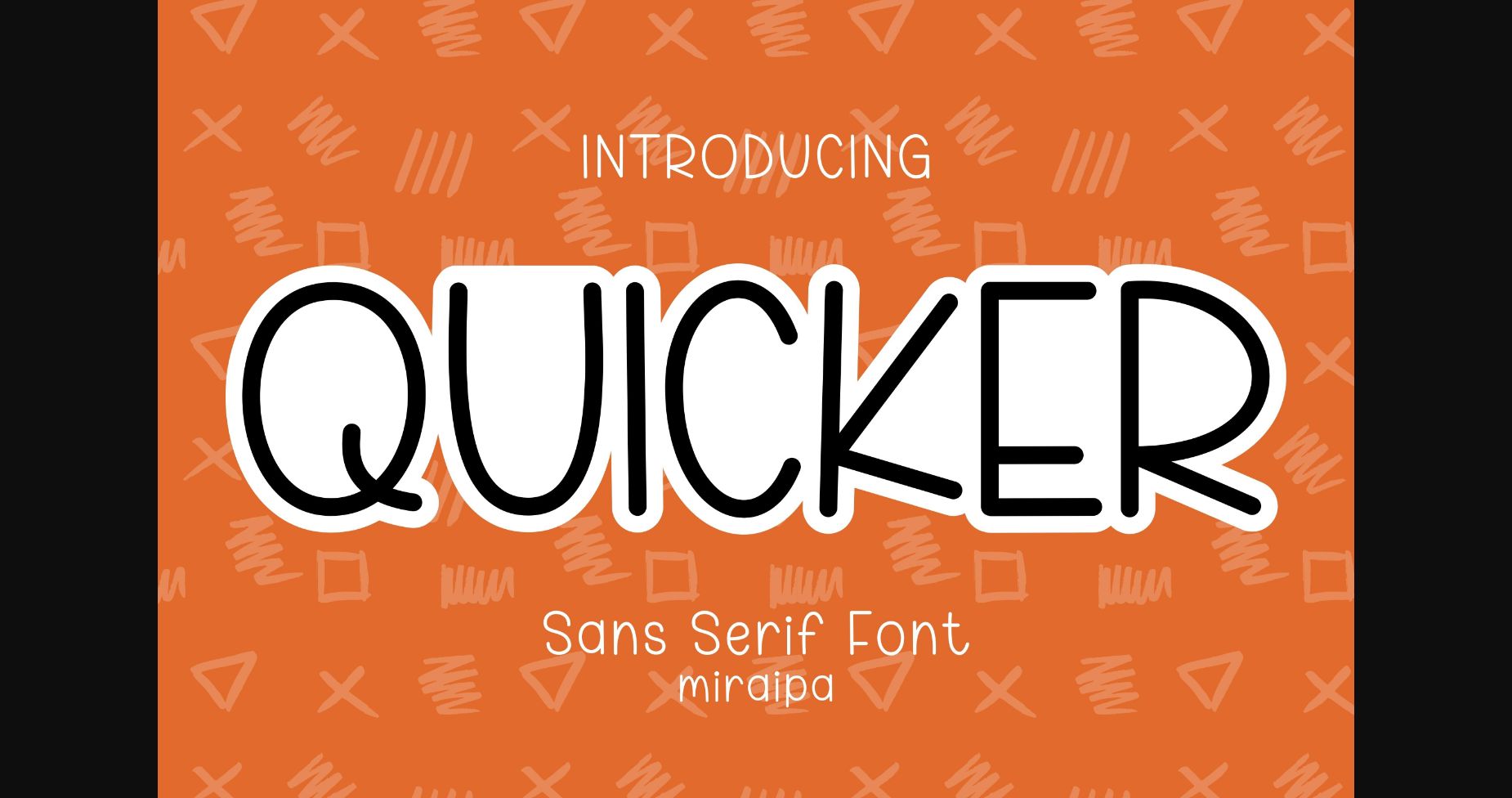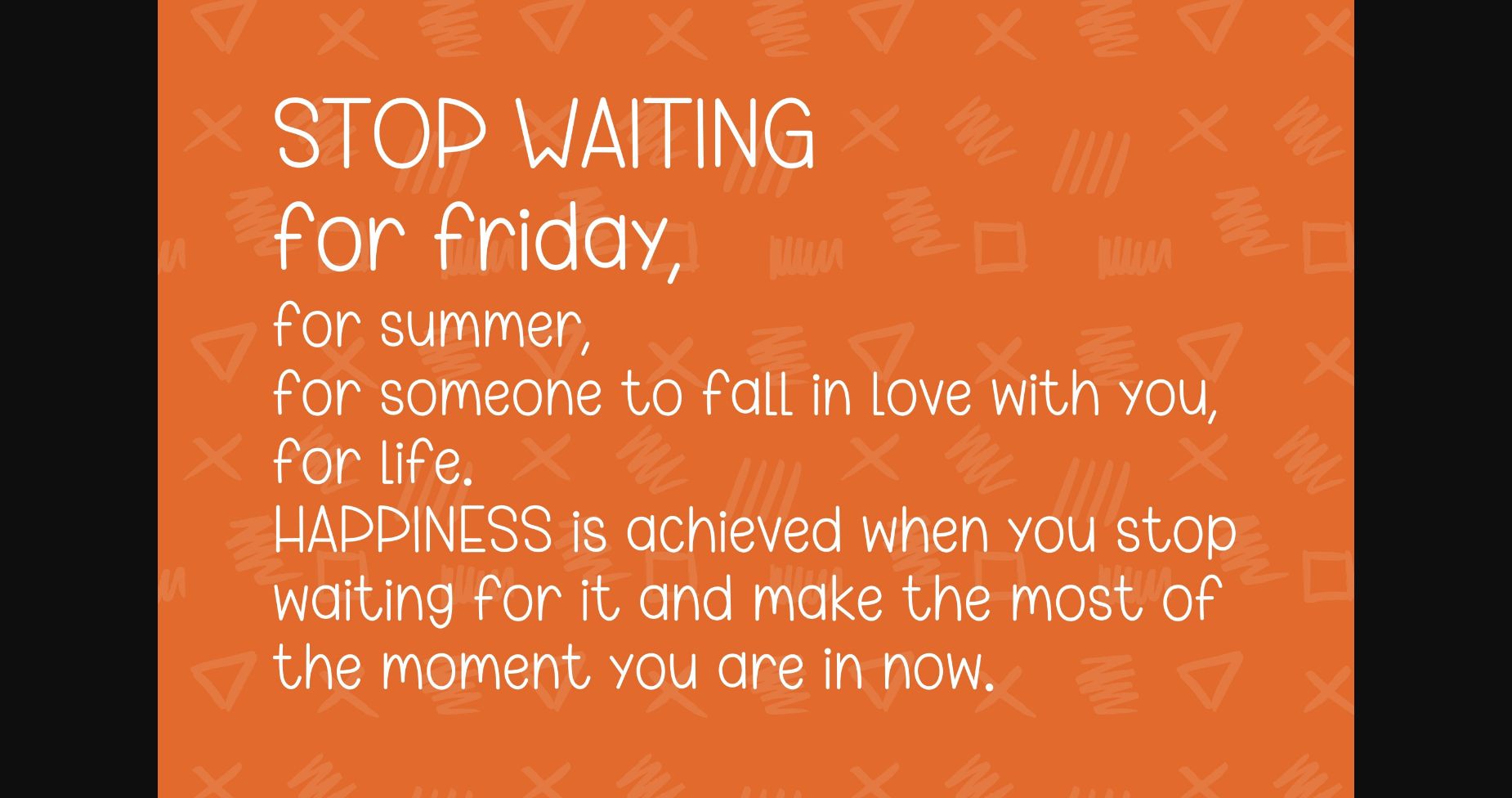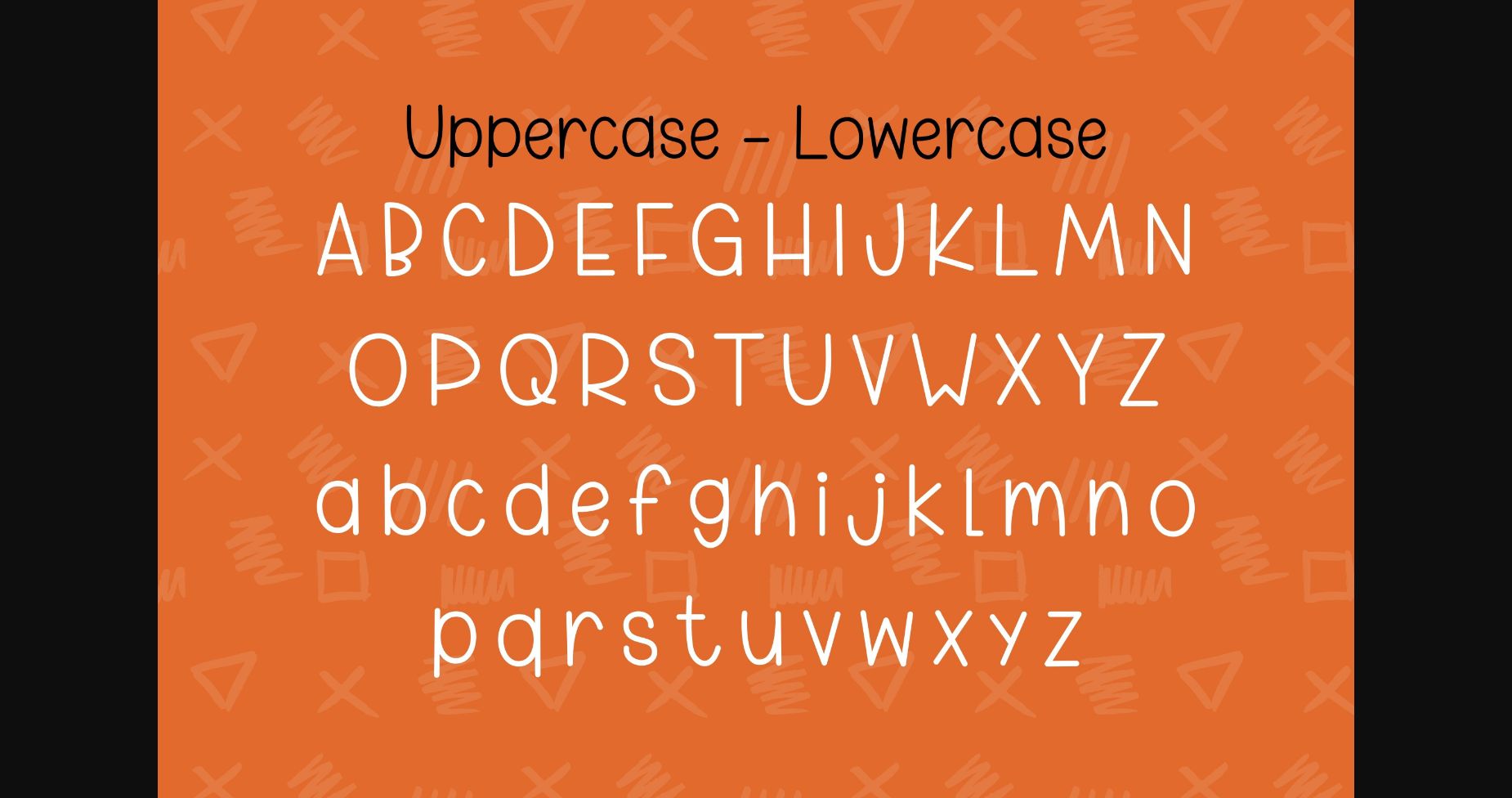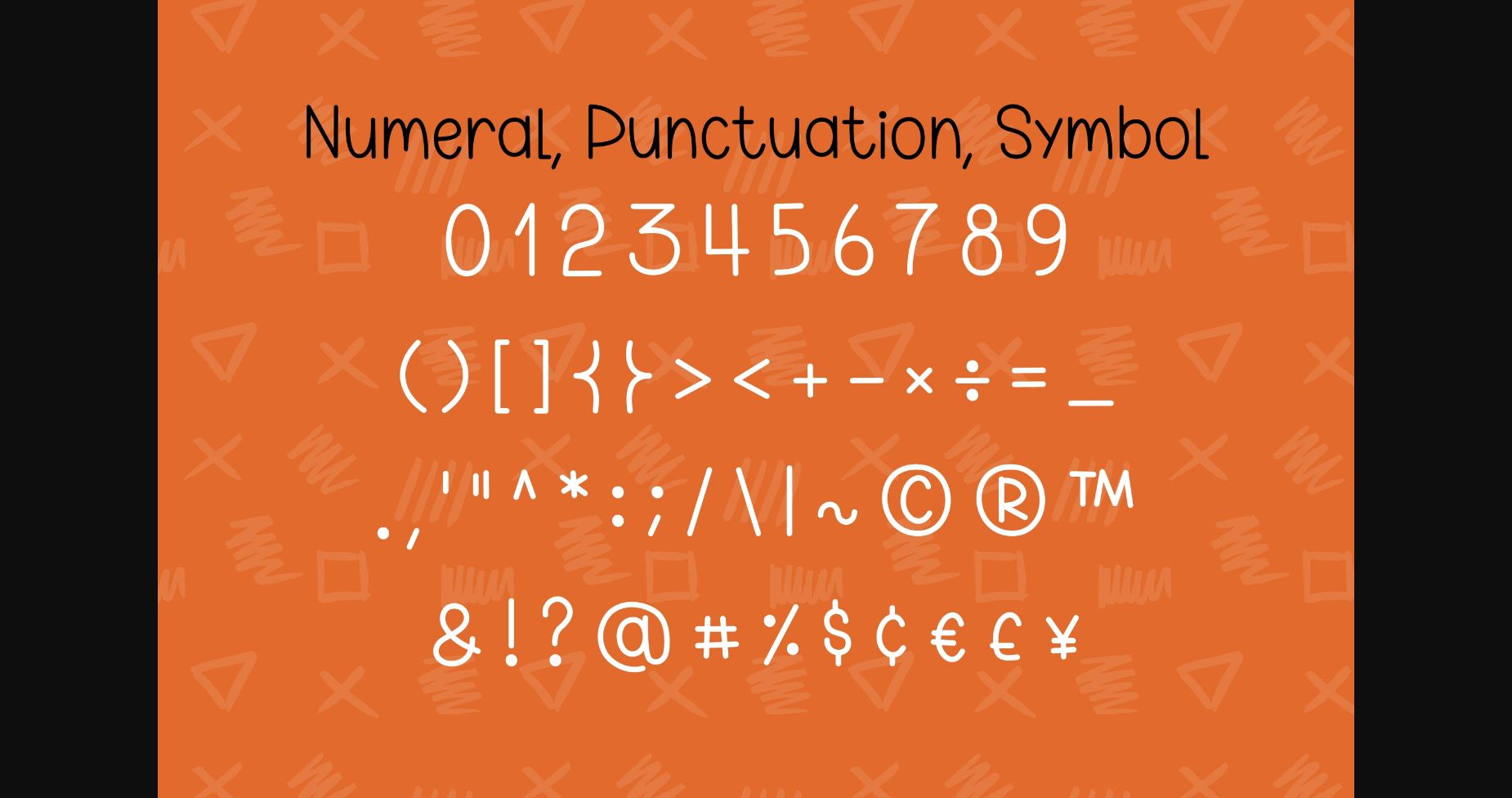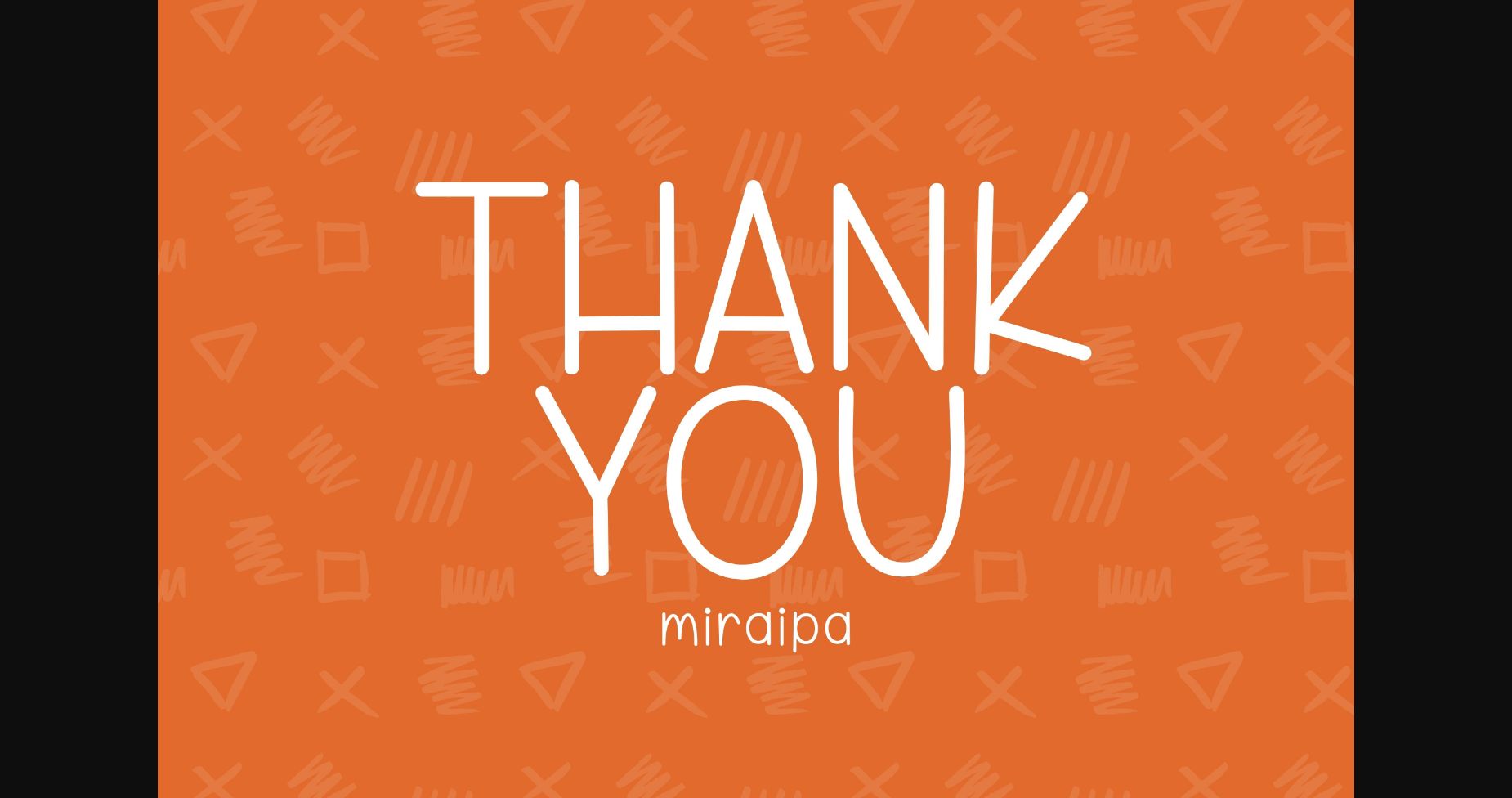
Quicker Font
About Quicker Font
Quicker is a cute and friendly handwritten sans serif font. Fall in love with its incredibly versatile style and use it to create gorgeous wedding invitations, beautiful stationary art, eye-catching social media posts, and much more!